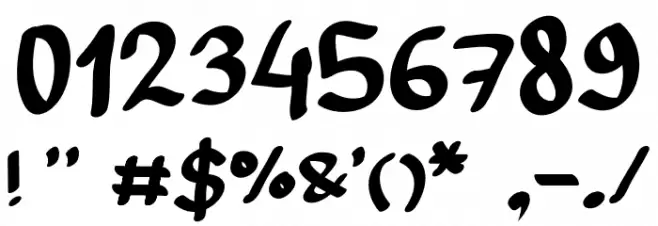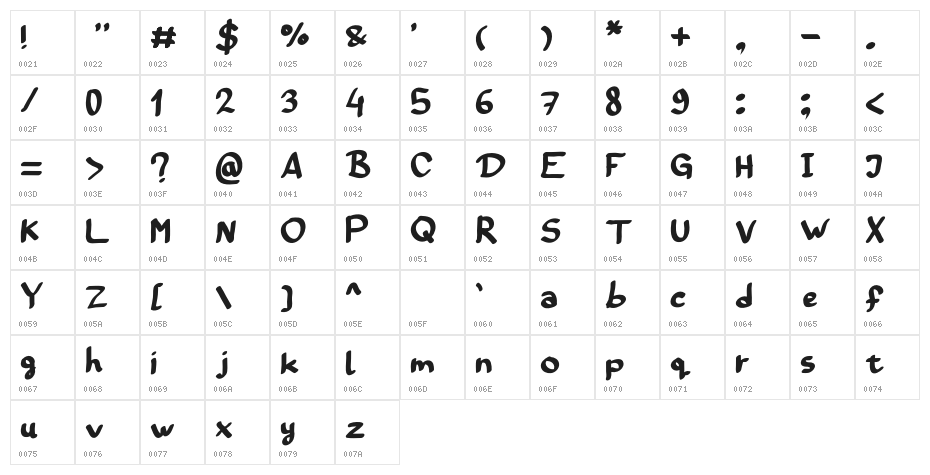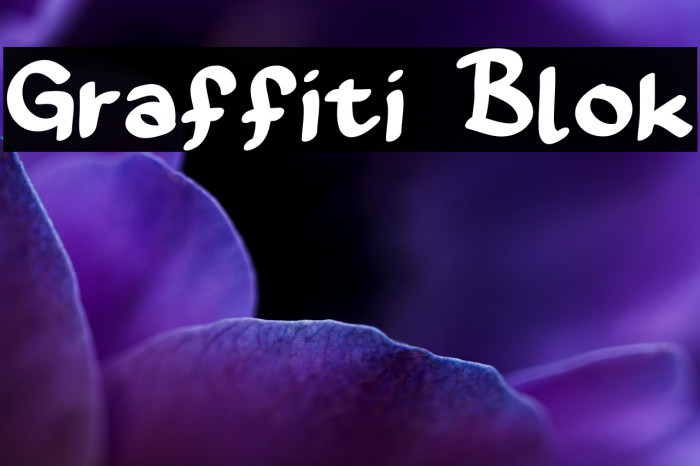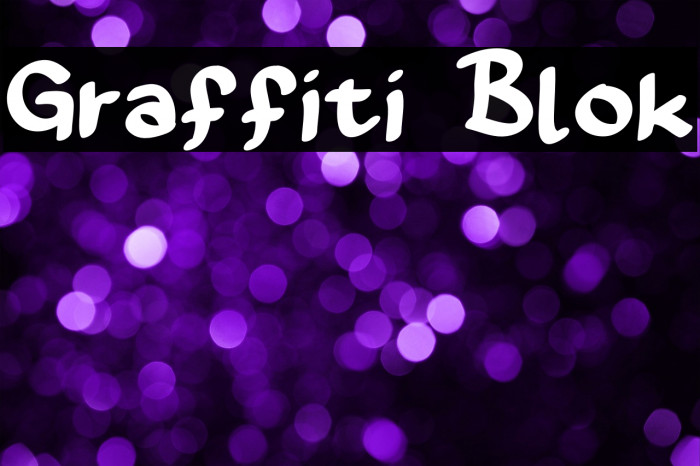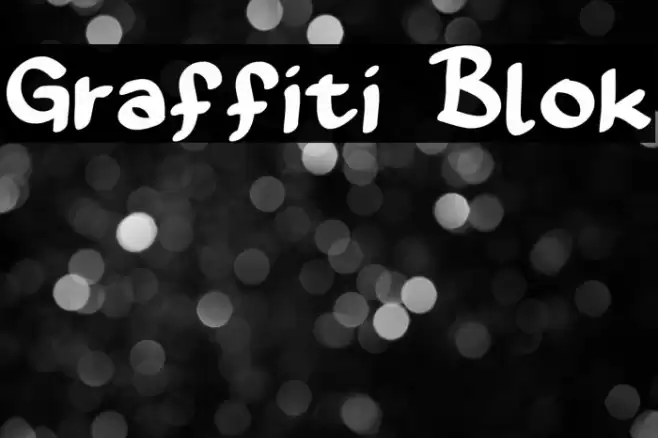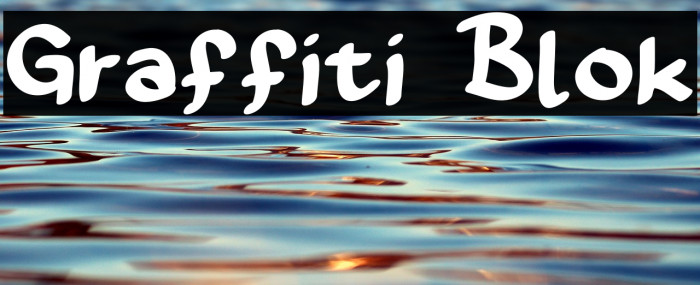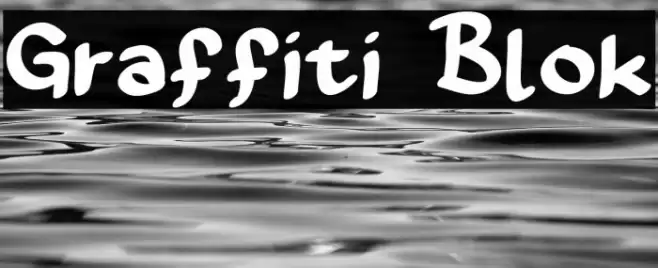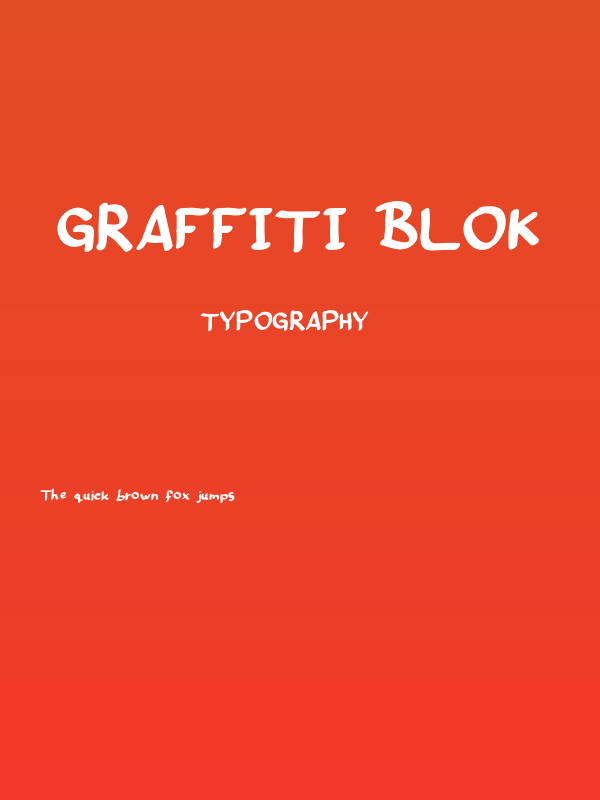
Graffiti Blok Font
Graffiti Blok Description
This font features a bold, playful style reminiscent of graffiti art. The characters are thick and rounded, with a dynamic and energetic flow that captures the essence of street art. The uppercase and lowercase letters maintain a consistent style, with slight variations that add to the hand-drawn feel. Numbers and special characters are equally bold, ensuring readability while maintaining the artistic flair. The overall appearance is informal and expressive, making it ideal for projects that require a youthful and vibrant touch.
| Proposed Projects | Ideal for street art-themed designs, posters, urban branding, and creative projects that require a bold and youthful expression. |